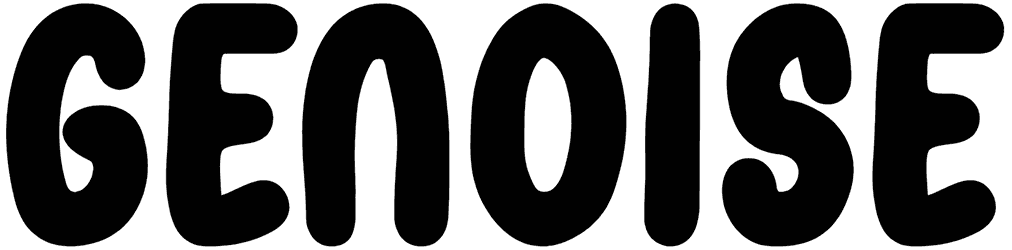
Genoise Font
Designed byHanna Bie
For a modern design that can satisfy everyone, choosing a minimal and realistic outward look can be a shrewd choice. This handwritten font with its chunky and smooth lettering would be an adorable style for your creative designs. Even though Genoise doesn’t cover lowercase letters, it will be a nice item to trim your layouts, namely invitations, planners, packaging, and so on.